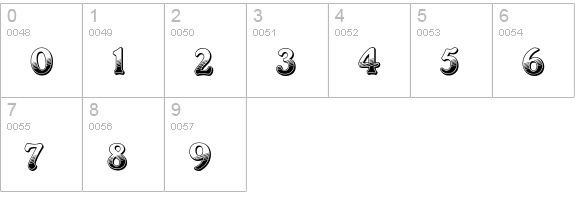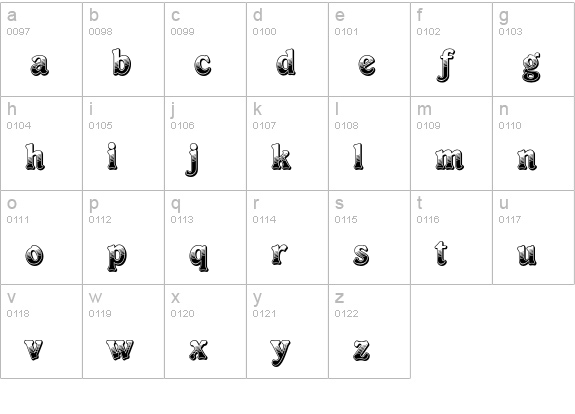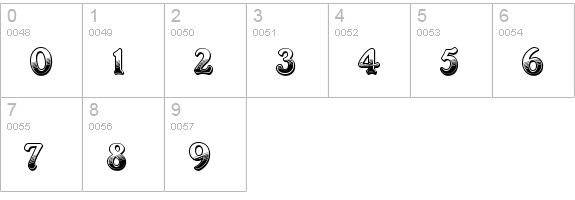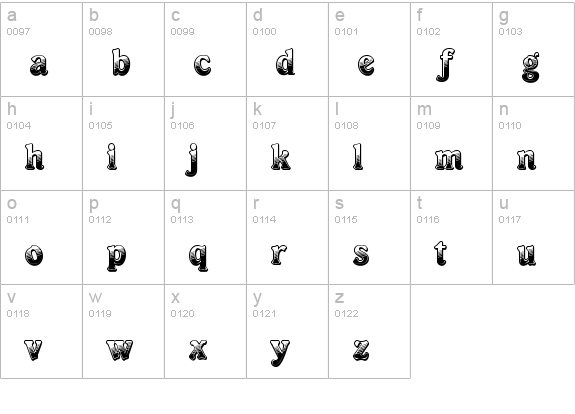
CabaretEF Font Details
Introducing CabaretEF, a stunning font that will transport you to the glamorous world of the cabaret. With its elegant curves and vintage flair, this typeface captures the essence of the 1920s era, where opulence and entertainment reigned supreme. CabaretEF is the perfect choice for projects that demand a touch of sophistication and a dash of nostalgia. Its graceful letterforms exude a sense of drama and allure, making it ideal for headlines, invitations, posters, and more. What sets CabaretEF apart is not only its exquisite design but also its accessibility. This remarkable font is available for free download at FontsMarket.com, ensuring that anyone can incorporate its beauty into their creative endeavors. Whether you're a professional designer or a hobbyist, CabaretEF is ready to add a touch of class to your work. So why wait? Immerse yourself in the world of CabaretEF and let its timeless elegance captivate your audience. Download it today and unleash your creativity with this remarkable font.